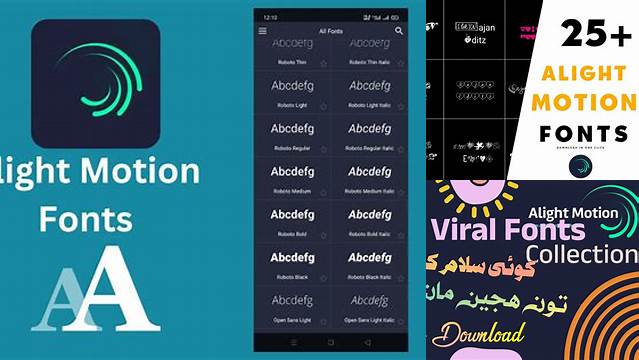
Hey guys! Are you ready to level up your video editing game in Alight Motion? One of the coolest ways to do that is by spicing up your text with some awesome fonts. And that's exactly what we're diving into today! We're talking about Alight Motion fonts download, where to find them, how to install them, and how to use them to create some seriously eye-catching animations. Get ready to transform your videos from basic to BOOM!
Unveiling the Magic: Why You Need Custom Fonts in Alight Motion
Okay, so you might be thinking, "Why bother with extra fonts? Doesn't Alight Motion already have some?" And the answer is YES, it does! But, the default fonts are, well, a little… basic. They're fine for a quick caption or a simple title, but if you want to really make your videos pop, you need something with a bit more flair. That's where custom fonts come in. Alight Motion fonts download opens up a whole new world of possibilities. You can find fonts that match your video's vibe, whether you're going for a sleek, modern look, a retro feel, or something totally out there. Think about it: you can use a bold, chunky font for a dramatic intro, a playful, whimsical font for a fun tutorial, or an elegant script font for a wedding video. The right font can instantly communicate your message and grab your audience's attention. It's like choosing the perfect outfit – it completes the look and shows off your personality! Plus, using custom fonts helps you stand out from the crowd. Everyone's using the same default fonts, so when you use something unique, your videos become instantly more memorable and professional. It's a small detail that makes a big difference, trust me. Imagine your friend scrolling through their feed and stopping to watch your video because the text looks so cool. That's the power of a well-chosen font. So, are you ready to start exploring the world of fonts and make your videos shine? Let's dive in!
Font Formatting Fundamentals: Mastering Text Styles and Effects
Alright, you've got your fonts installed, now let's talk about how to make them shine! Alight Motion offers a ton of options for formatting your text and creating amazing effects. First off, Alight Motion fonts download and install is only the beginning. You can adjust the size, color, and alignment of your text to make it fit your video's design. The color options are endless, and you can even use gradients or patterns for a more interesting look. You can also add outlines, shadows, and glow effects to your text to make it pop. These effects are a great way to separate your text from the background and add depth to your video. Think about how you can use these effects to complement your font choice. For example, a bold, chunky font might look great with a thick outline and a subtle drop shadow. A more delicate script font might look better with a soft glow. Alight Motion also has options for animating your text. You can use keyframes to create smooth transitions and effects, such as fading in and out, sliding in from the side, or rotating. You can also use the "Text Transform" tool to warp, skew, or distort your text in creative ways. This is where the real fun begins. Experiment with different animation styles to see what works best for your video. Try combining different effects and animation techniques to create something truly unique. Don't be afraid to try new things and push the boundaries of what's possible! And don't forget to use the built-in text styles. Alight Motion has a variety of pre-designed text styles that you can use as a starting point. These styles can save you time and help you get a professional look quickly. You can always customize the pre-designed styles to match your needs. The key to mastering text formatting is experimentation. Play around with different settings and see what looks best. There are no right or wrong answers. Just have fun and let your creativity flow!
Beyond the Basics: Pro Tips for Stunning Text Animations
Okay, you've learned the fundamentals, but let's take it up a notch! Here are some pro tips to help you create truly stunning text animations. First off, always consider the context of your video. Alight Motion fonts download is important, but so is choosing a font that fits the overall tone and style. Is your video serious or playful? Modern or retro? Choose a font that complements your message and your audience. Don't be afraid to use multiple fonts in your video. Using different fonts can add visual interest and help you highlight important information. Just be sure to use them in a consistent and harmonious way. Too many fonts can look messy and unprofessional. Pay attention to the kerning, leading, and tracking of your text. Kerning is the space between individual letters, leading is the space between lines of text, and tracking is the overall spacing of the text. Adjusting these settings can dramatically improve the readability and appearance of your text. Experiment with different animation techniques. Try using a combination of keyframes, effects, and text transformations to create unique and engaging animations. Don't be afraid to get creative and think outside the box! Use motion blur to add a sense of speed and dynamism to your text animations. Motion blur can make your text look smoother and more professional. Another great tip is to use pre-made text animation templates. Alight Motion offers a variety of templates that you can customize to fit your needs. These templates can save you time and help you create professional-looking animations quickly. If you're feeling really adventurous, try creating your own text animation templates. This can be a fun and rewarding way to improve your skills and develop your own unique style. Another tip is to use color strategically. Color is a powerful tool that can be used to create mood, highlight important information, and grab attention. Use contrasting colors to make your text stand out from the background. Don't be afraid to experiment with different color palettes. The more you play with these pro tips, the more impressive your videos will become. So, go out there and experiment!
Alight Motion Fonts and Copyright: What You Need to Know
Alright, let's talk about something super important: copyright. When you're Alight Motion fonts download, it's crucial to understand the licensing terms. Not all fonts are created equal! Some are free for personal and commercial use, some are only free for personal use, and some require you to purchase a license for commercial projects. Always check the license agreement before using a font. The license will tell you how you're allowed to use the font, whether you can use it for commercial purposes, and whether you need to give credit to the font designer. If you're creating videos for commercial purposes (like for a business or to sell on platforms like YouTube), you need to make sure you have the appropriate license. Using a font without the proper license could lead to legal issues, so it's always better to be safe than sorry. If you're not sure whether a font is free for commercial use, it's best to contact the font designer or the website where you downloaded it. They can provide you with the necessary information and help you avoid any potential problems. Websites like Google Fonts offer fonts that are licensed under the Open Font License, which allows for free use, including commercial use. Others, such as DaFont, often have varying license terms depending on the designer. Pay close attention to this. If you're creating videos for personal use, you generally don't need to worry as much about commercial licensing. However, it's still a good idea to familiarize yourself with the license terms to avoid any misunderstandings. Understanding font copyright is a crucial part of being a responsible video creator. It protects the rights of font designers and helps ensure that everyone can use fonts in a fair and legal way. So, before you start using those awesome fonts, take a moment to review the license terms. It's a small step that can save you a lot of headaches in the long run!
Creating Stunning Video Content: The Power of Typography in Alight Motion
Okay, let's get to the good stuff: creating amazing video content! Typography is a powerful tool, and when you combine it with the awesome features of Alight Motion, you can create some seriously eye-catching videos. Choosing the right font is just the first step. Alight Motion fonts download is only the beginning, then you need to think about how to use it to enhance your message and engage your audience. Consider the overall tone of your video. Is it energetic and upbeat, or calm and serious? Choose a font that reflects the mood of your video. Experiment with different font combinations. Pair a bold, attention-grabbing font with a more subtle font for body text. This will create visual interest and make your video more dynamic. Make sure your text is easy to read. Choose a font that's clear and legible, especially if your video is designed to convey important information. Avoid using overly ornate fonts that are difficult to read. Use color strategically. Choose colors that complement your video's visuals and enhance the overall message. Use contrasting colors to make your text stand out from the background. Don't be afraid to use animation to bring your text to life. Use keyframes, effects, and text transformations to create dynamic and engaging text animations. This can help you capture your audience's attention and keep them watching. Pay attention to the spacing between your text and the other elements in your video. Make sure your text isn't too crowded or too far away from the other elements. Use visual hierarchy to guide your audience's eye. Use different font sizes, weights, and colors to create a clear hierarchy of information. This will help your audience understand the most important parts of your message. Using the right typography in Alight Motion can transform your videos into engaging and professional content. So, get creative, experiment with different styles, and have fun creating!
Conclusion: Unleash Your Creativity with Custom Fonts!
So, there you have it! You now have a solid foundation on Alight Motion fonts download and how to use them to elevate your video editing game. Remember, the right font can make a world of difference. It can grab your audience's attention, communicate your message, and make your videos stand out from the crowd. So, go out there, explore the amazing world of fonts, and start creating some truly stunning video content. Have fun, experiment, and don't be afraid to try new things. The possibilities are endless, and the only limit is your imagination. Happy editing, and happy font hunting!